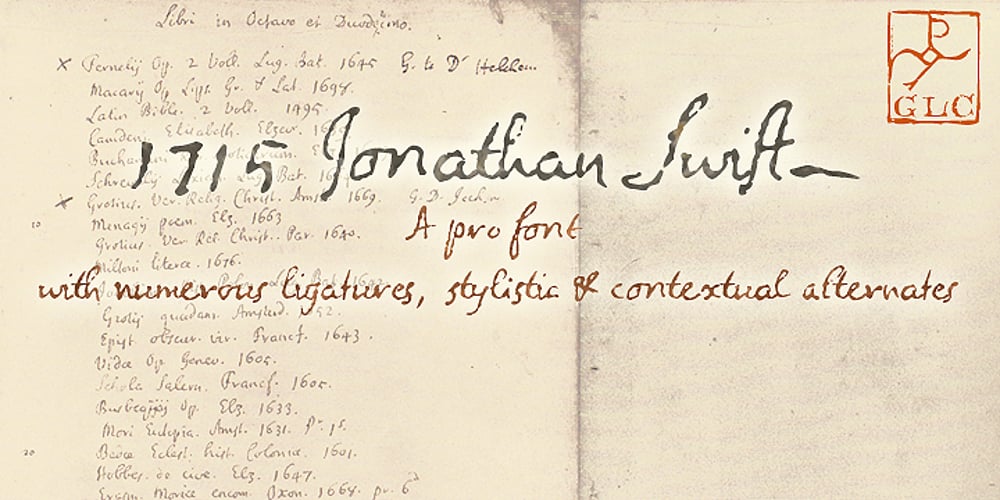
1715 Jonathan Swift Font Family was designed by published by GLC. 1715 Jonathan Swift contains 1 styles and family package options. The famous Irish poet and novelist Jonathan Swift (Dublin 1667-1745) has a large personal library of which he noticed carefully the book list by himself. We have used a facsimile from this catalogue to reconstruct this present font, as one example of the poet’s personal hands but also as a typical example of the British quill pen handwriting from about mid 1600’s to the beginning of 1700’s . It is a “Pro” font containing Western (including Celtic) and Northern European, Icelandic, Baltic, Eastern, Central European and Turquish diacritics. The numerous alternates and ligatures allow to made the font looking as closely as possible to the real hand. Using an OTF software, the features allow to vary automatically almost each character of a word without anything to do but to select contextual alternates and standard ligatures and/or stylistic alternates options.